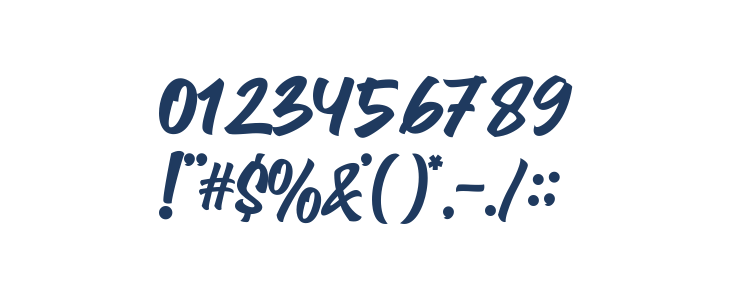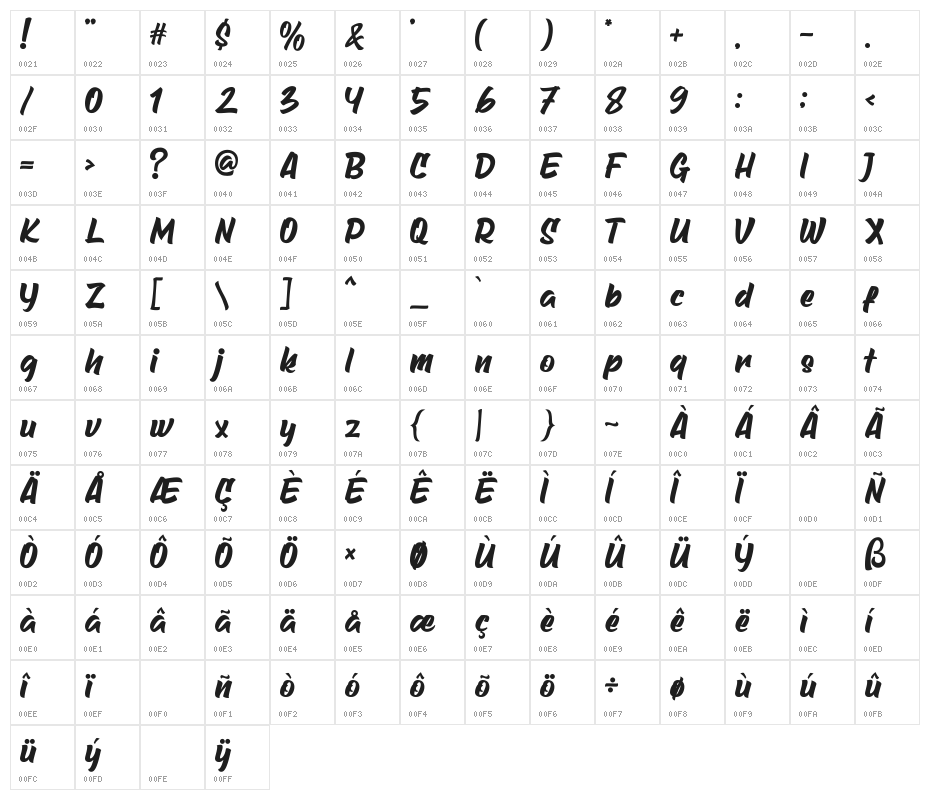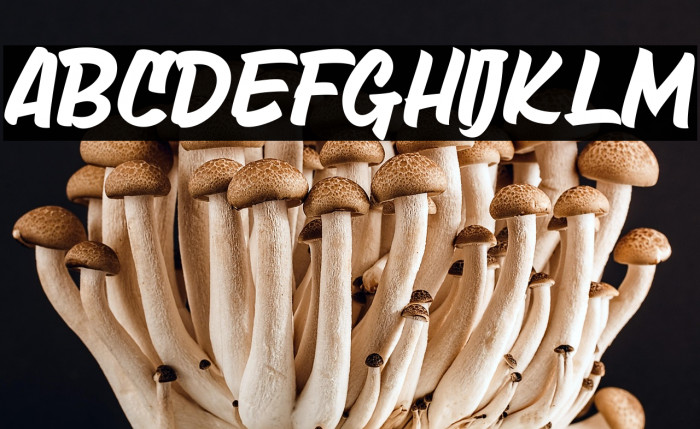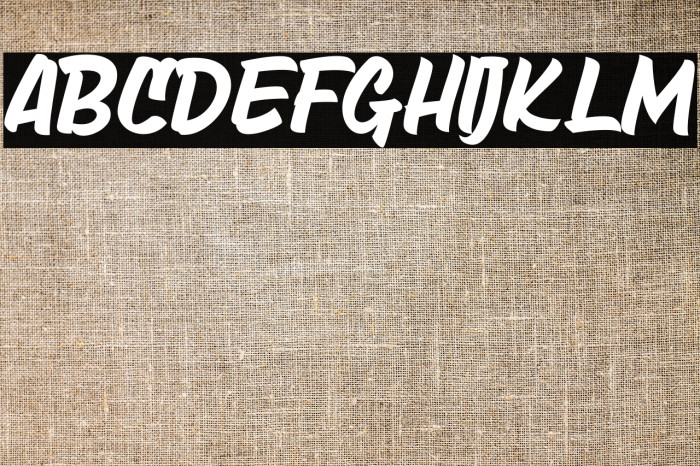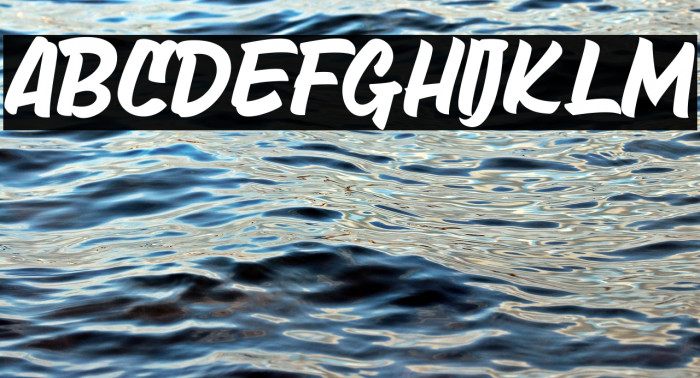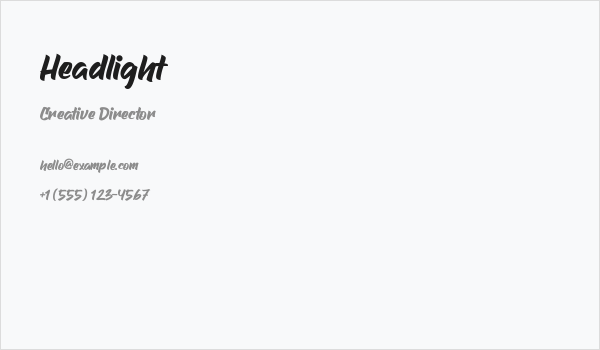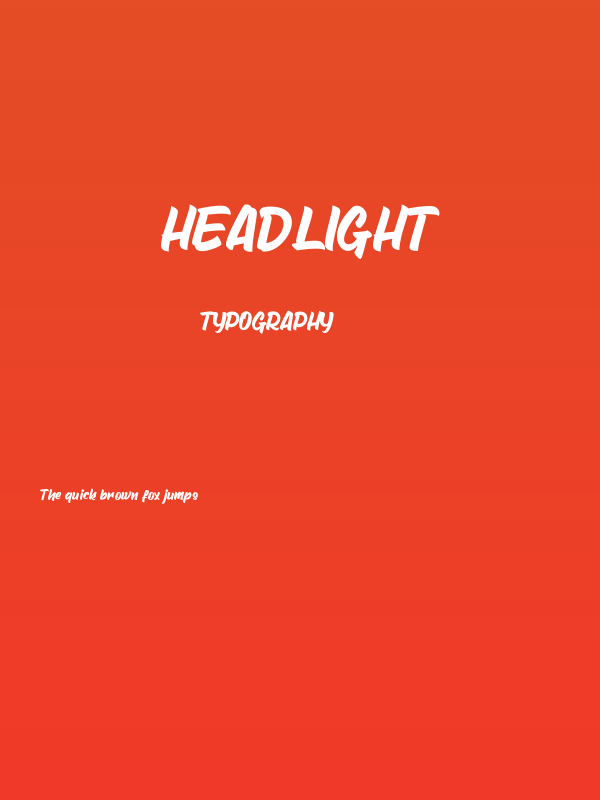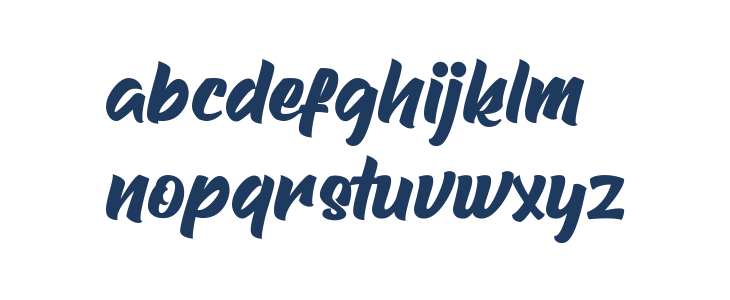
Headlight Font
Headlight Description
This font features a bold, energetic script style with a dynamic and flowing appearance. The characters are connected in a way that mimics natural handwriting, giving it a personal and informal feel. The strokes are thick and consistent, providing a strong visual impact. The uppercase letters are slightly more formal, while the lowercase letters exhibit a playful and casual vibe. Numbers and special characters maintain the same boldness and fluidity, ensuring a cohesive look across all elements.